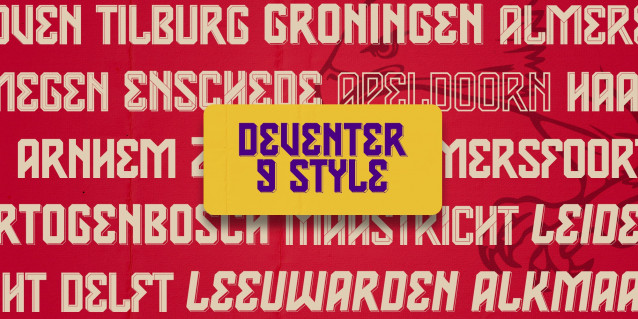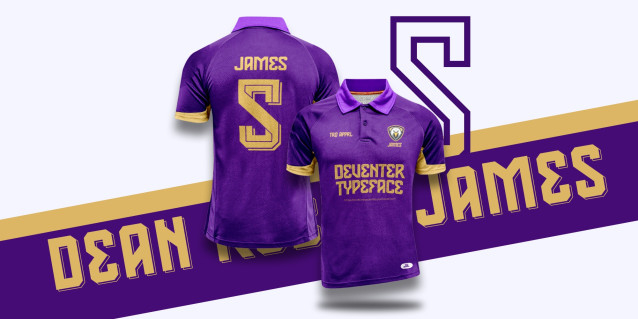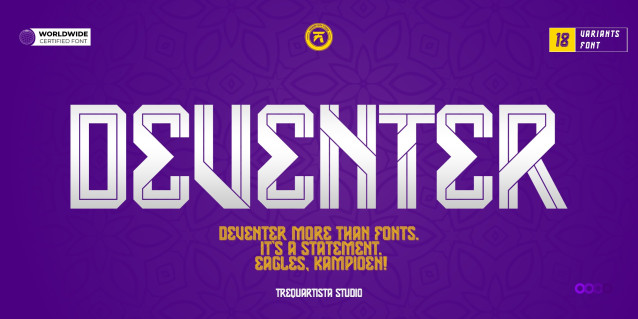
Deventer Font
Deventer Font – Inspired by the classic architecture of the city, the storied cobblestone streets, and the red-and-yellow passion of its supporters, Deventer Bold delivers a typeface that is strong, assertive, and full of pride.
Deventer — more than just letters, it’s a lifestyle, a legacy, and a statement of pride.
Because every letter has a voice. And this one shouts:
“Eagles, kampioen!”
Every letter is designed not just to be seen—but to be felt. This is more than typography—it’s the voice of the stadium, the breath of the terraces, the soul stitched into every crest.
Therefore excellent to use for headers, logos, captions and posters, especially for the sports branding industry, but just as good for any other projects.